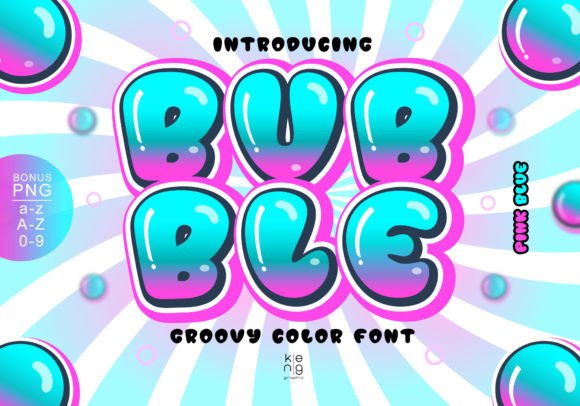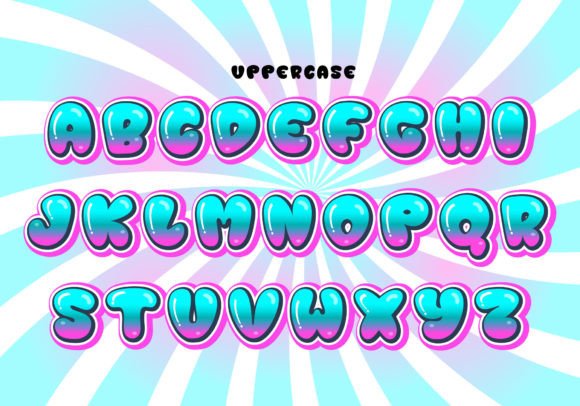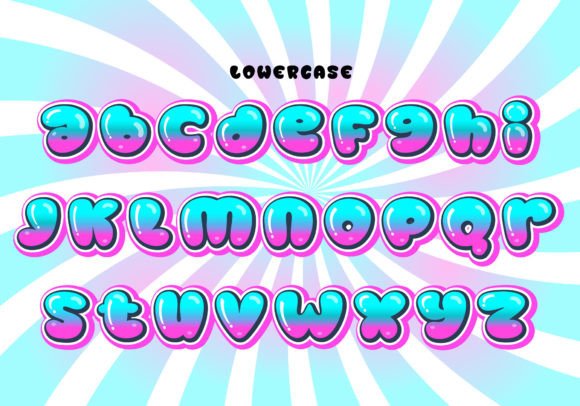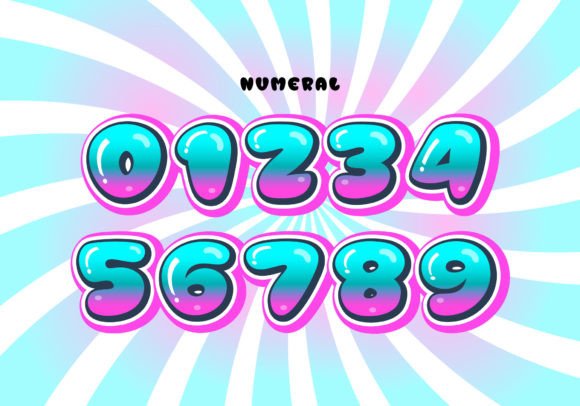
Bubble Pink Blue Font
About the Bubble Pink Blue Font
Welcome to the world of Bubble Pink Blue Font, a typeface that will inspire your next great project. Bubble Pink Blue is an attractive and groovy color font that is both colorful and bulky, with letters that pack a punch and demand attention. The letters are well-crafted, with a mix of bright hues and chunky shapes that create a sense of playfulness and energy. Its bold and vibrant appearance makes it perfect for logos, packaging, and designs that require a touch of excitement and personality.
Bubble Pink Blue Font excels in headlines, short text blocks, and eye-catching branding elements where its playful energy can shine. It’s ideal for projects targeting a younger demographic or those requiring a vibrant, fun aesthetic, such as children’s products, candy packaging, or social media graphics. Avoid using it for body text or extended reading; its chunky forms hinder readability in large quantities.
For effective pairings, consider a clean sans-serif like Open Sans or Lato to balance its boldness. A simple serif font such as Merriweather could add a touch of sophistication, while a geometric sans-serif such as Montserrat could emphasize the font’s modern vibe. Avoid pairing it with other similarly bold or highly decorative fonts to prevent visual clutter.
The font’s core personality is undeniably playful and bold, communicating fun and youthful energy. It is best suited to brands that want to project a friendly, approachable, and slightly quirky image.